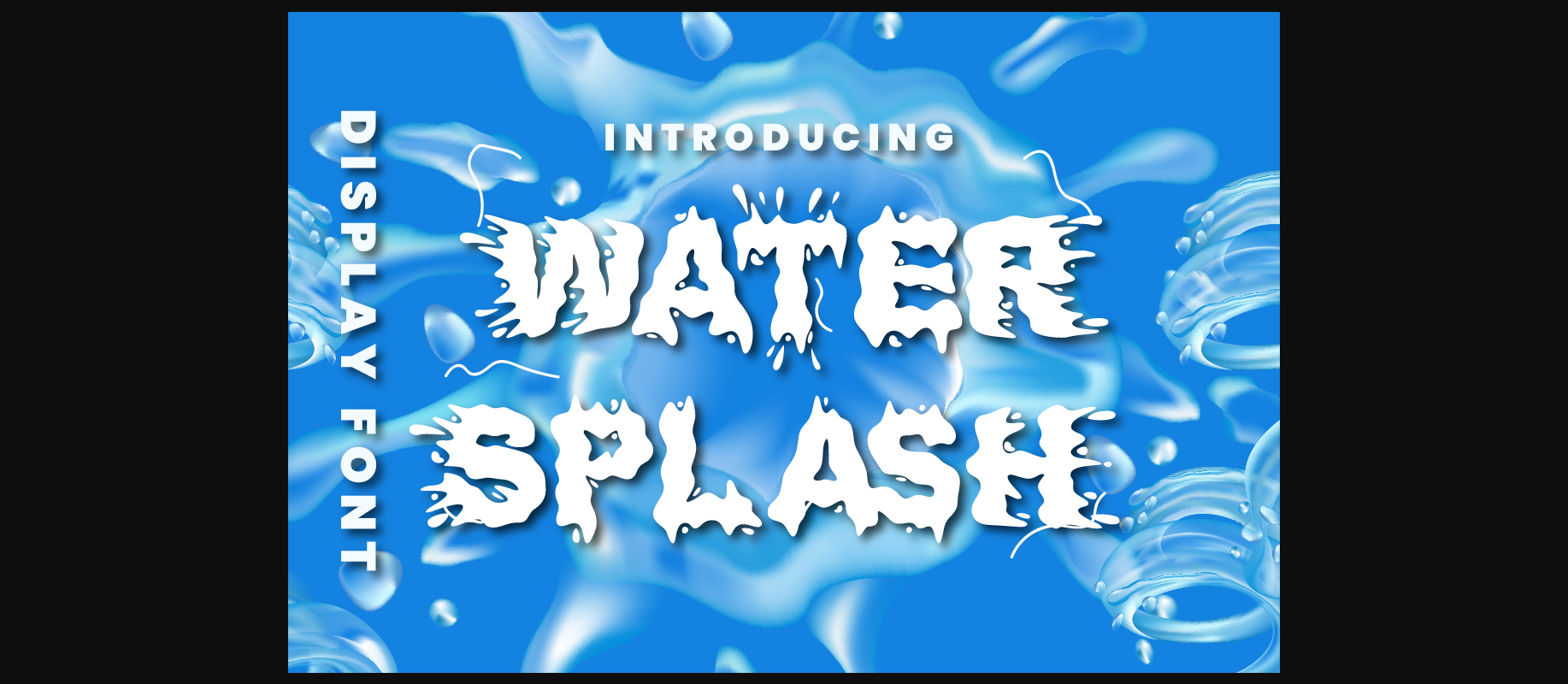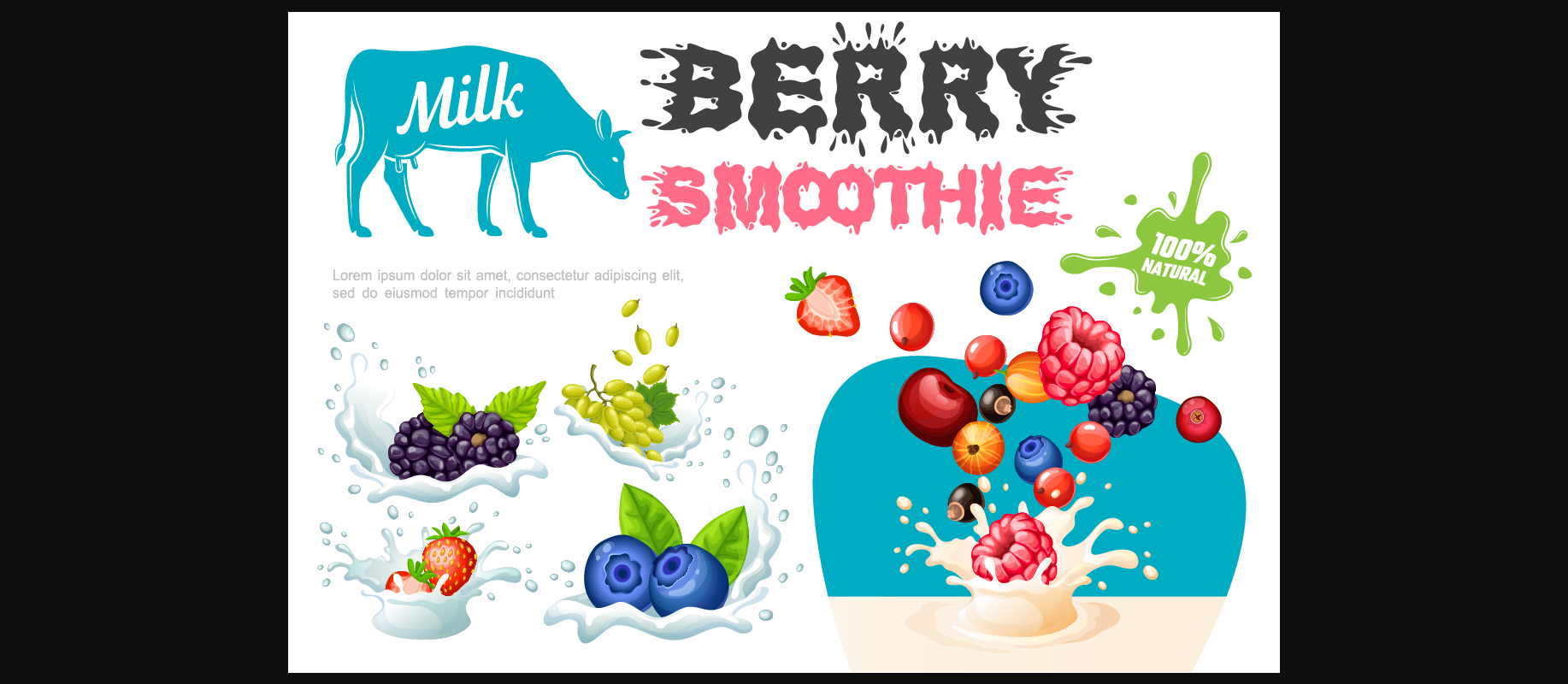
About Water Splash Font
Water Splash is a fun and unique decorative font. Water Splash would be perfect for branding, logo, product, title, quotes, doodle, comic, books, greeting cards, toys, posters, baby clothing, picture books and more.